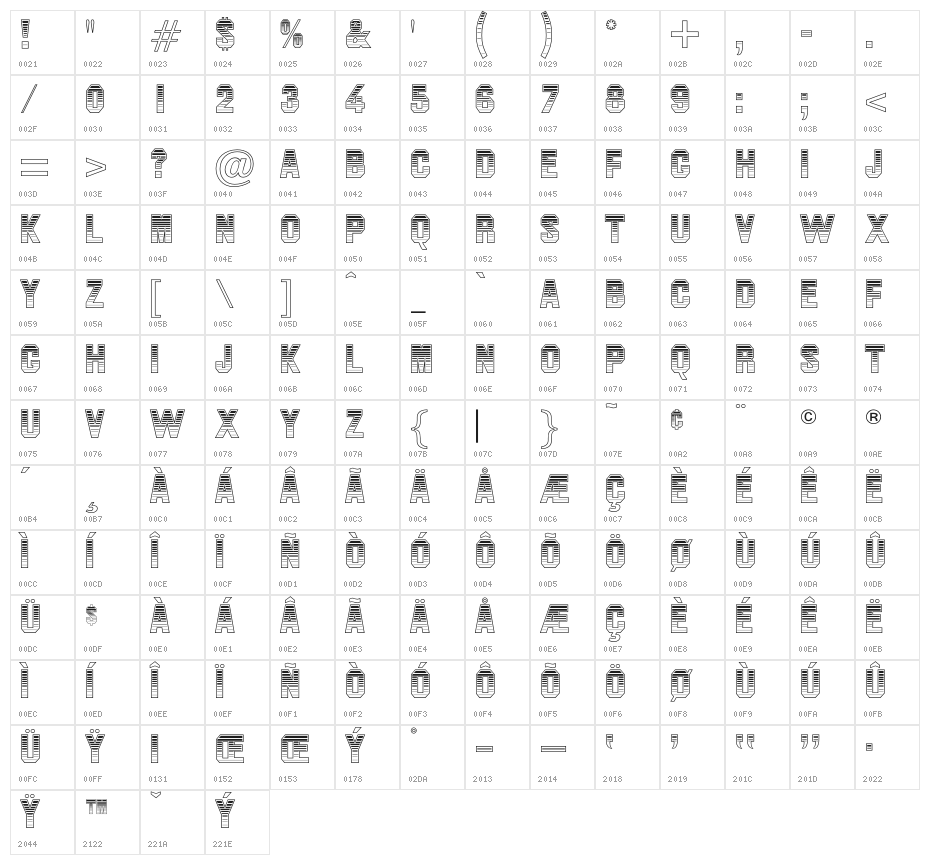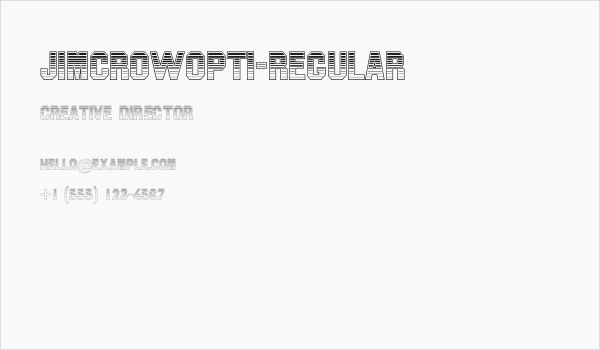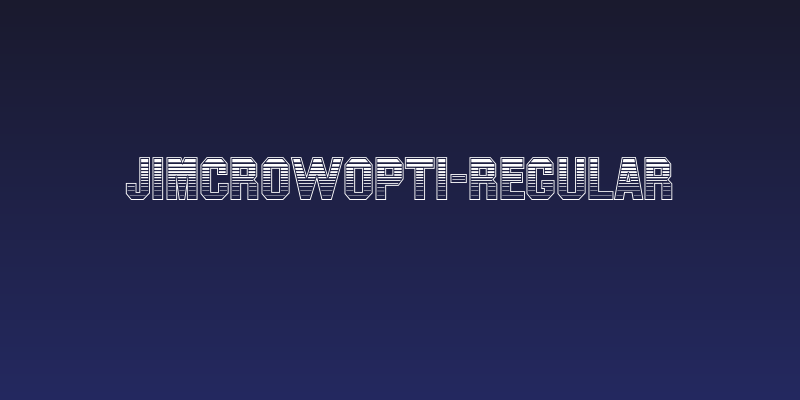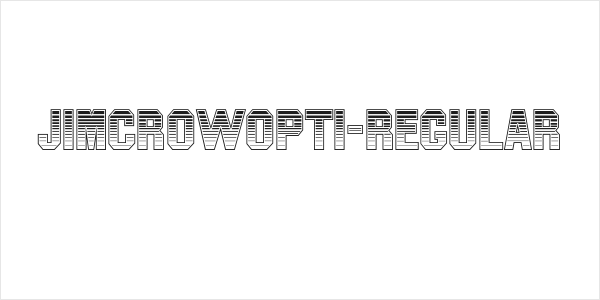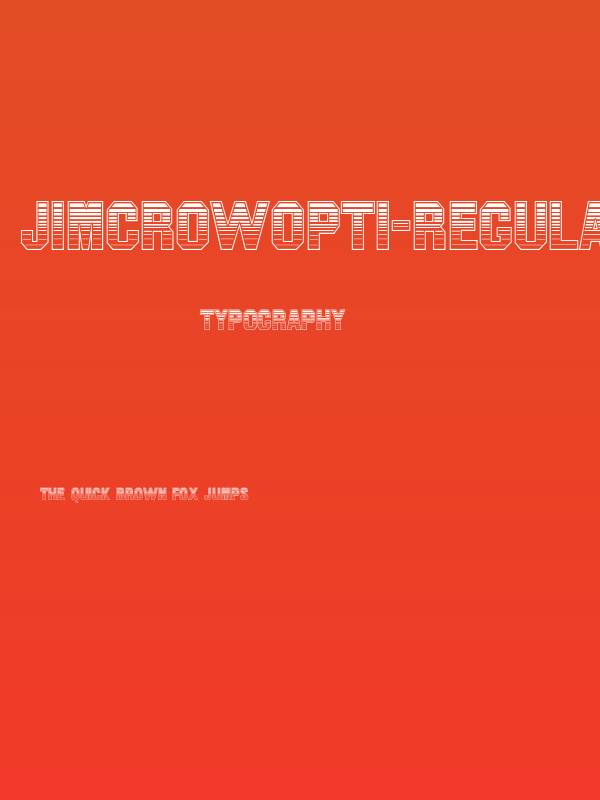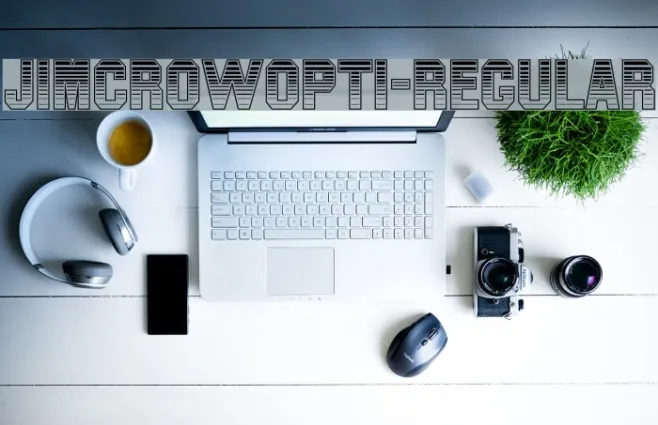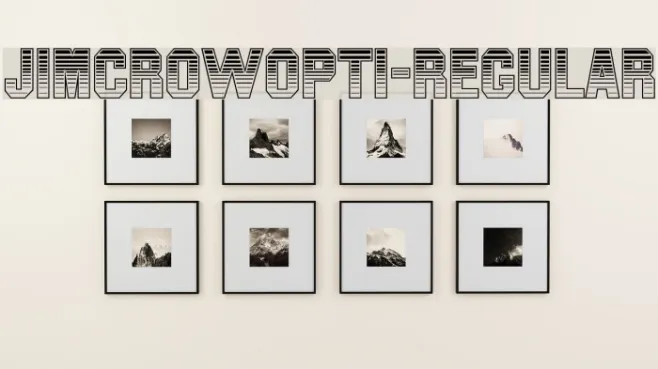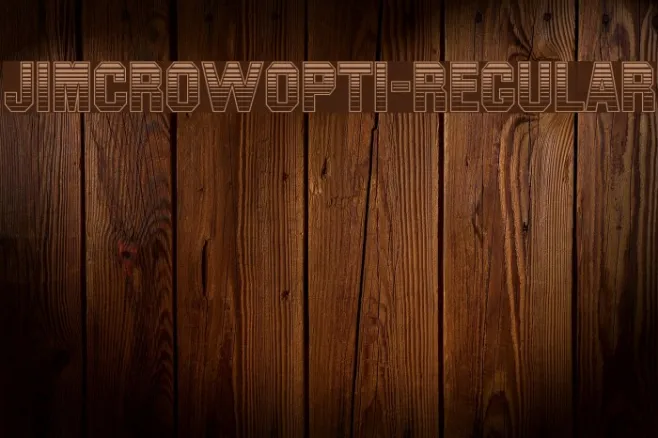
JimCrowOpti-Regular Font
JimCrowOpti-Regular Description
This font features a bold, decorative style with a unique 3D effect created by horizontal lines running through each character. The uppercase letters are designed with a strong, geometric form, giving them a striking and impactful appearance. The numerals and special characters follow the same design principles, ensuring consistency across all glyphs. The font's distinct style makes it ideal for attention-grabbing designs, where a sense of depth and dimension is desired. Its structured and bold nature lends itself well to projects that require a standout visual element.
| Proposed Projects | Ideal for posters, logos, headlines, and any design requiring a bold, eye-catching typeface. |